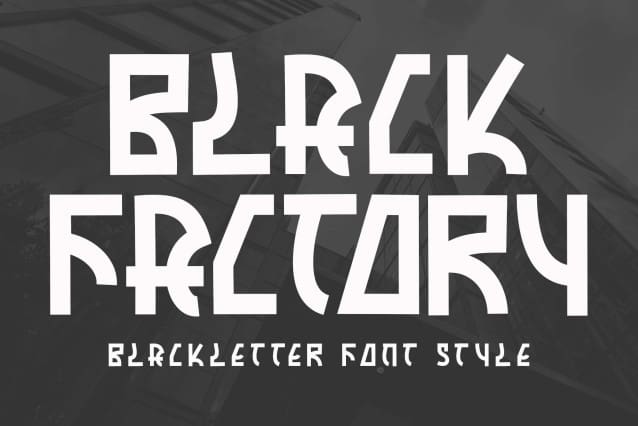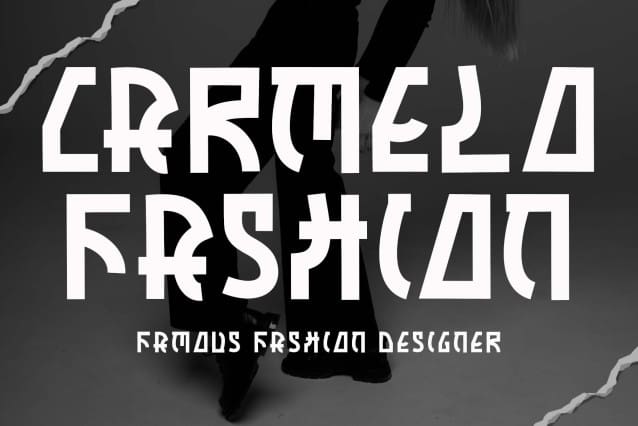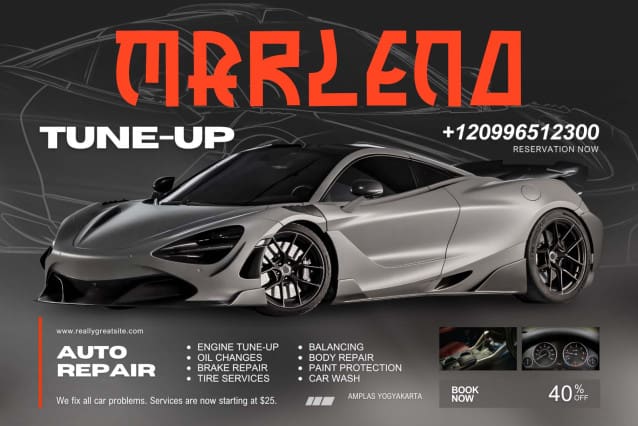
Black Factory Font
Black Factory Font is an elegant and unique blackletter font. This font is equipped with uppercase, lowercase, numerals, punctuations and multilingual support. It is very suitable for business branding, logos, banners, posters, stickers, prints, movie titles, invitations, social media and others.